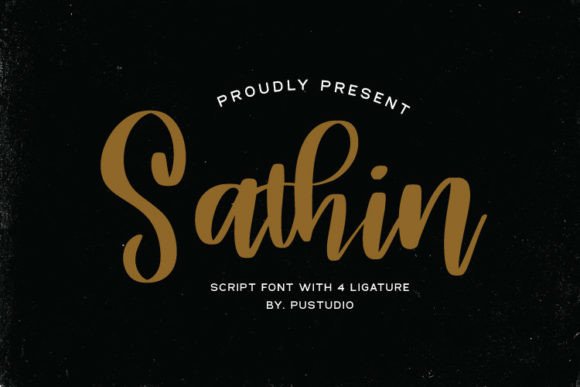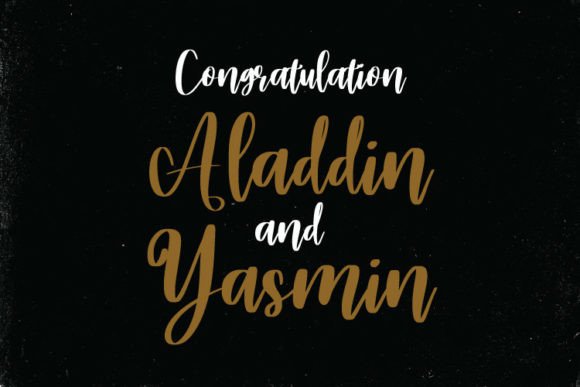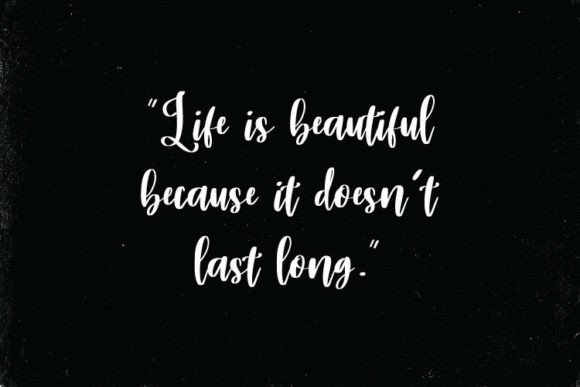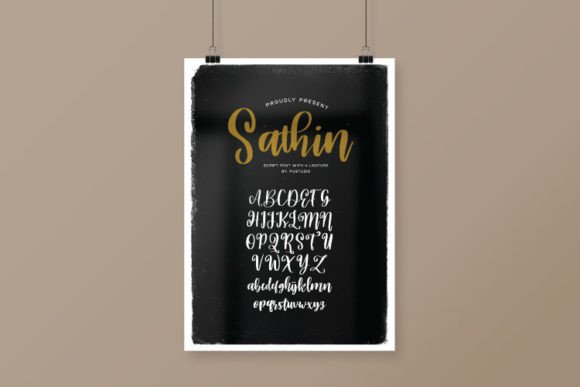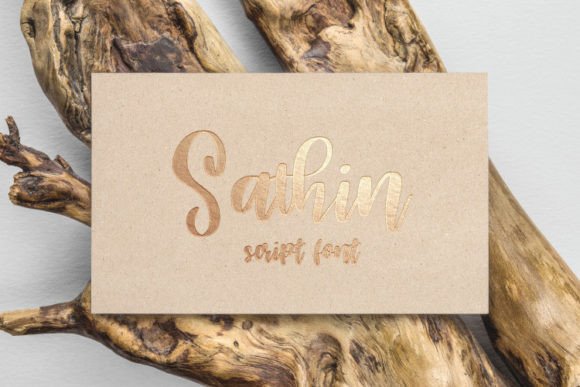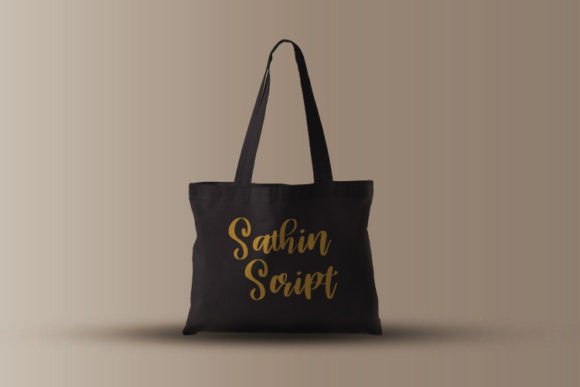
About Sathin
Sathin Script feels equally charming and elegant. It looks stunning on wedding invitations, thank you cards, quotes, greeting cards, logos, business cards, and every other design which needs a handwritten touch.